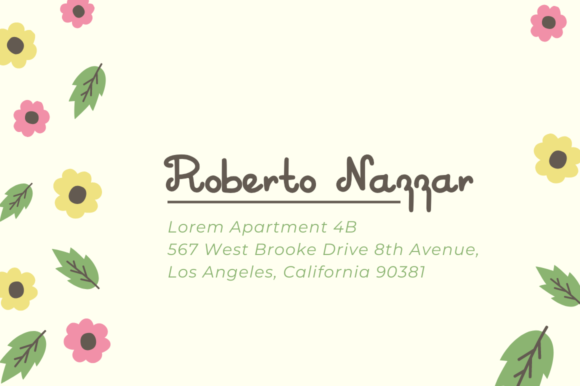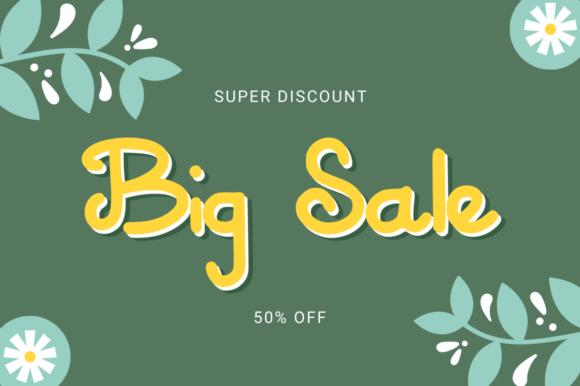
Lucy Font
db-ku.com - Script & Handwritten -- Lucy is a cute paint brushed handwritten font. It looks beautiful on a variety of designs requiring a personalized style, such as wedding invitations, thank you cards, weddings, greeting cards, logos and so on.